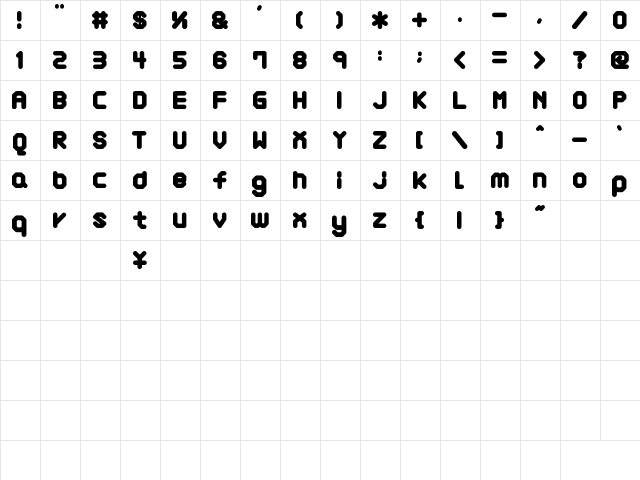
atarax-p Regular
Design Context for atarax-p Typeface
atarax-p offers clean, dependable letterforms without strong stylistic allegiance, making it a practical choice for designers who need flexibility.
Pro Tip: Pair atarax-p with a font of contrasting weight or personality to build a more expressive typographic hierarchy.